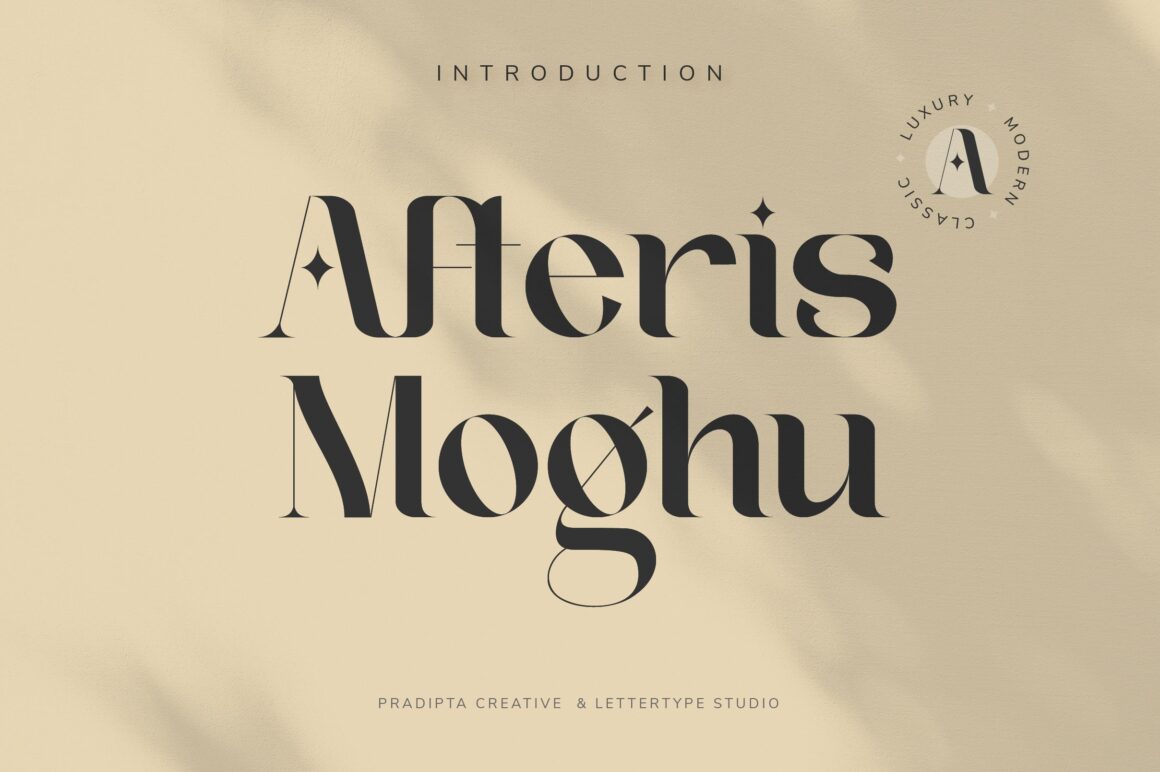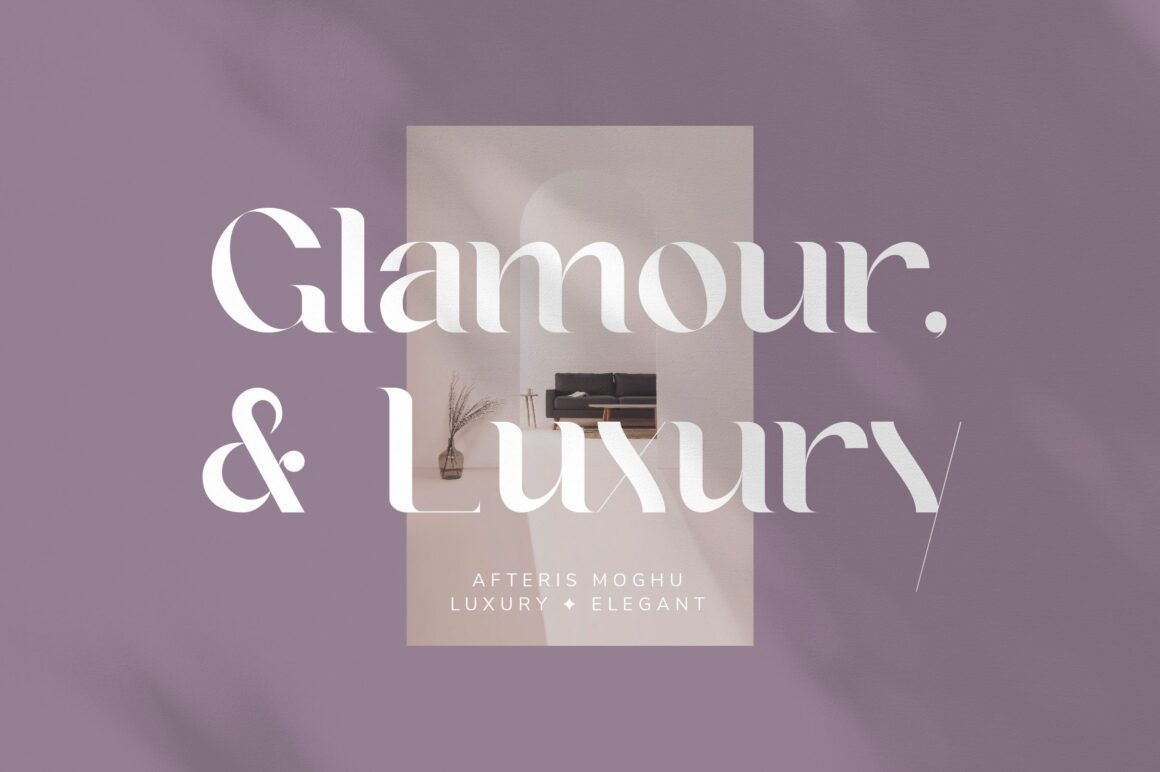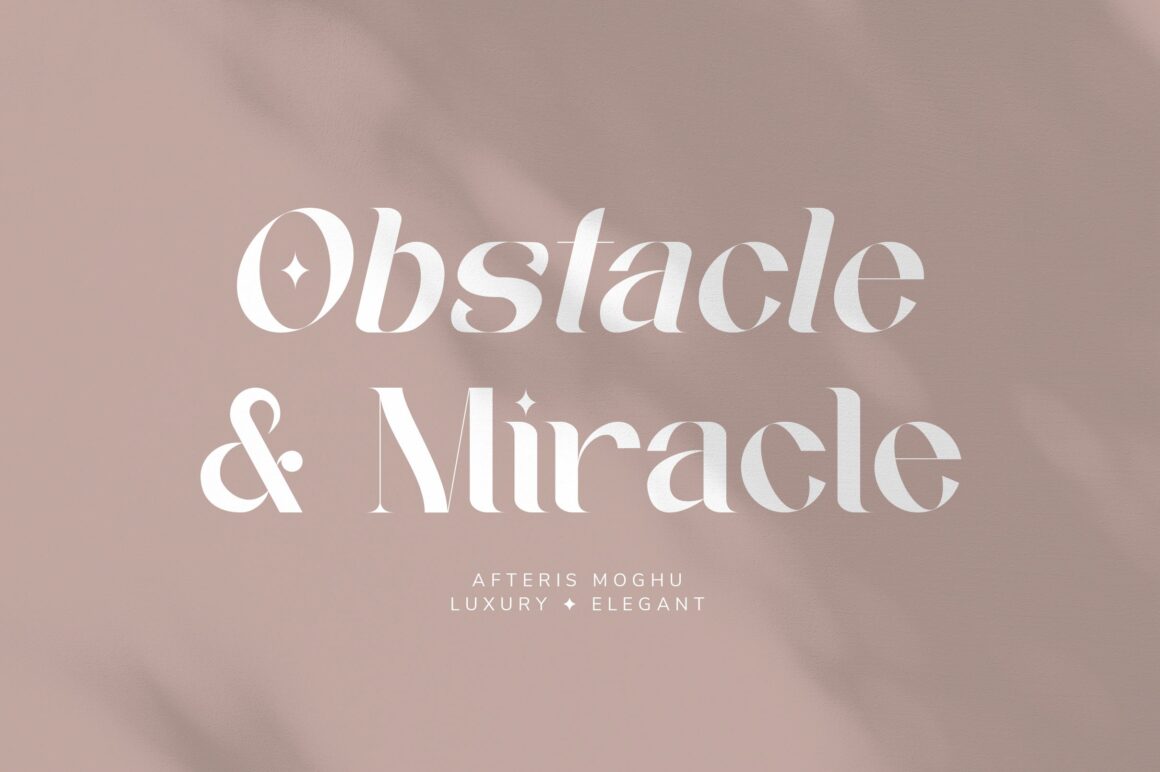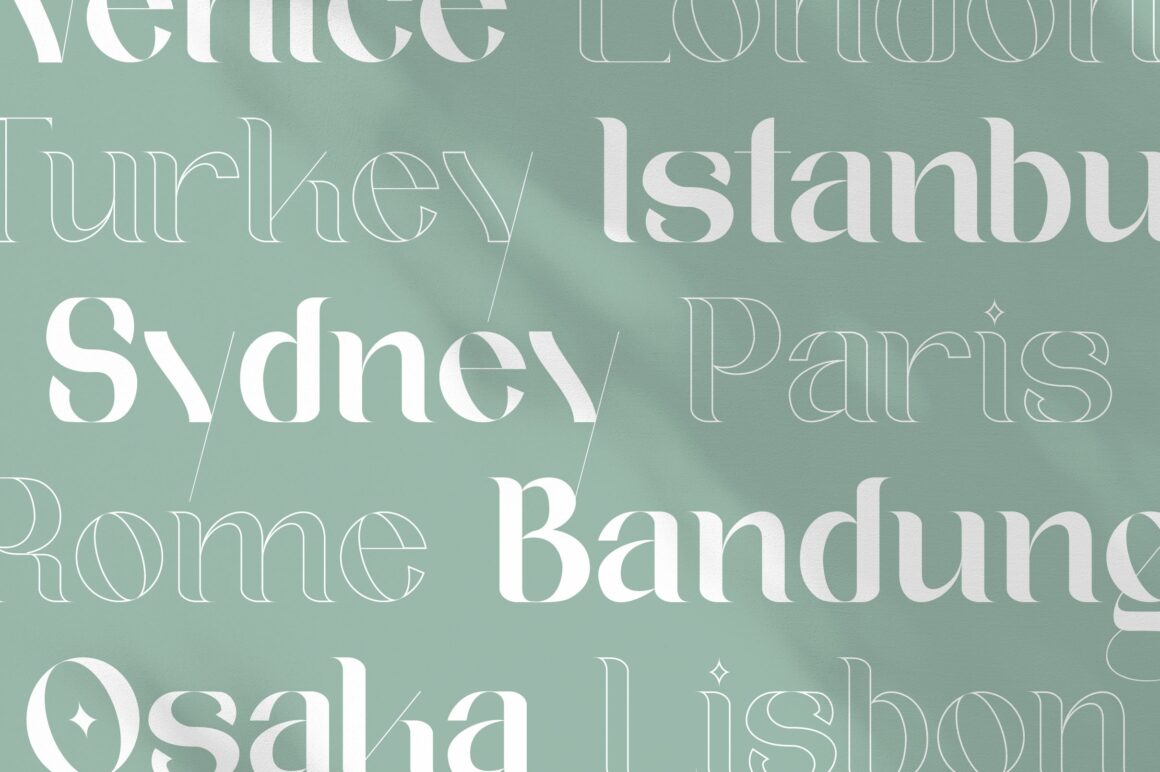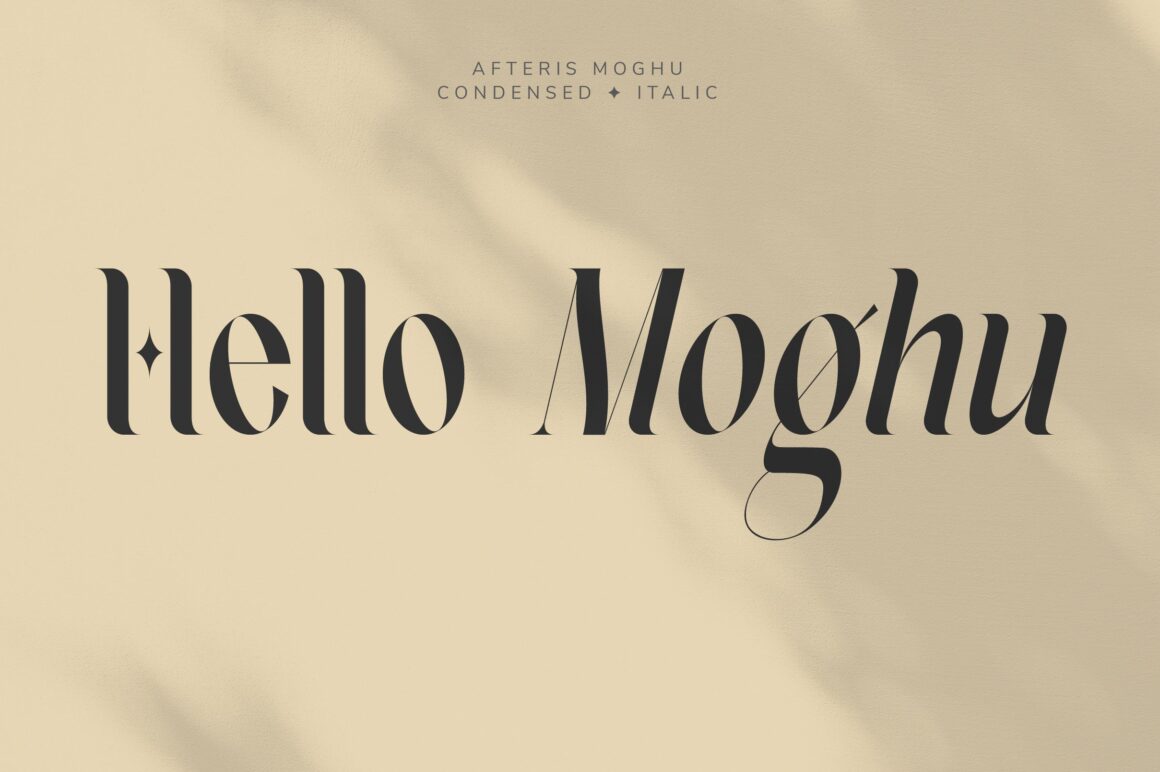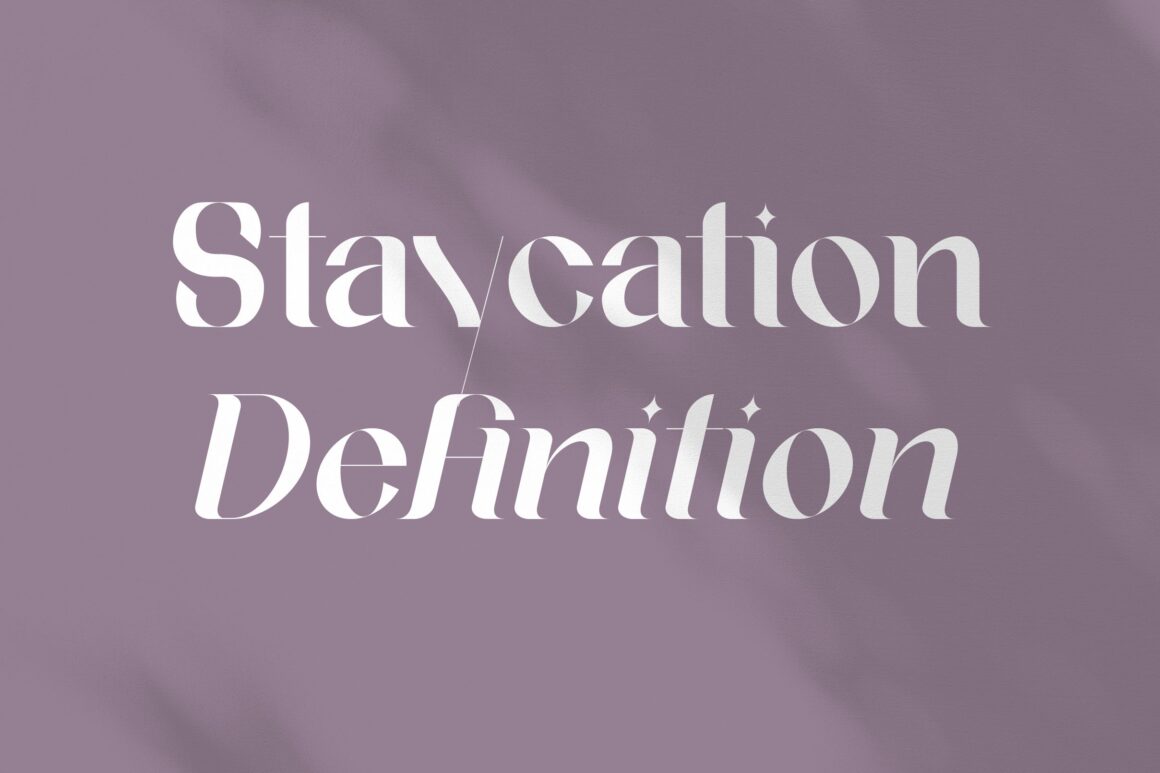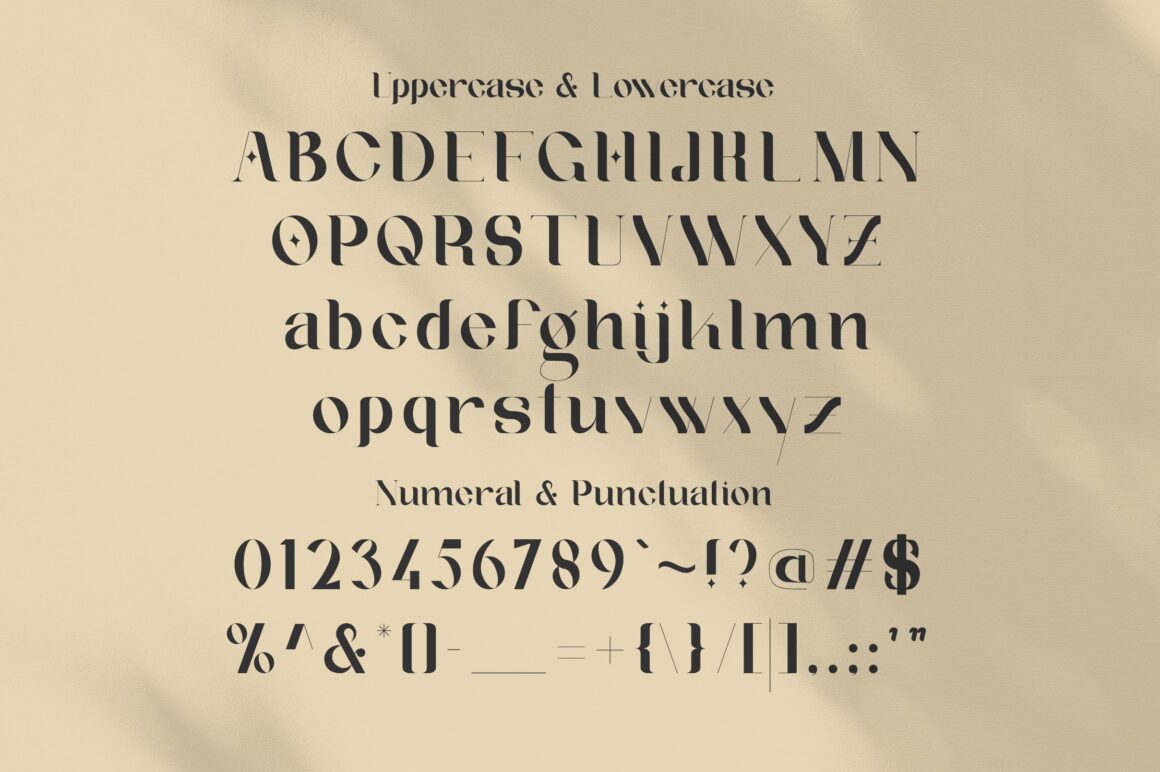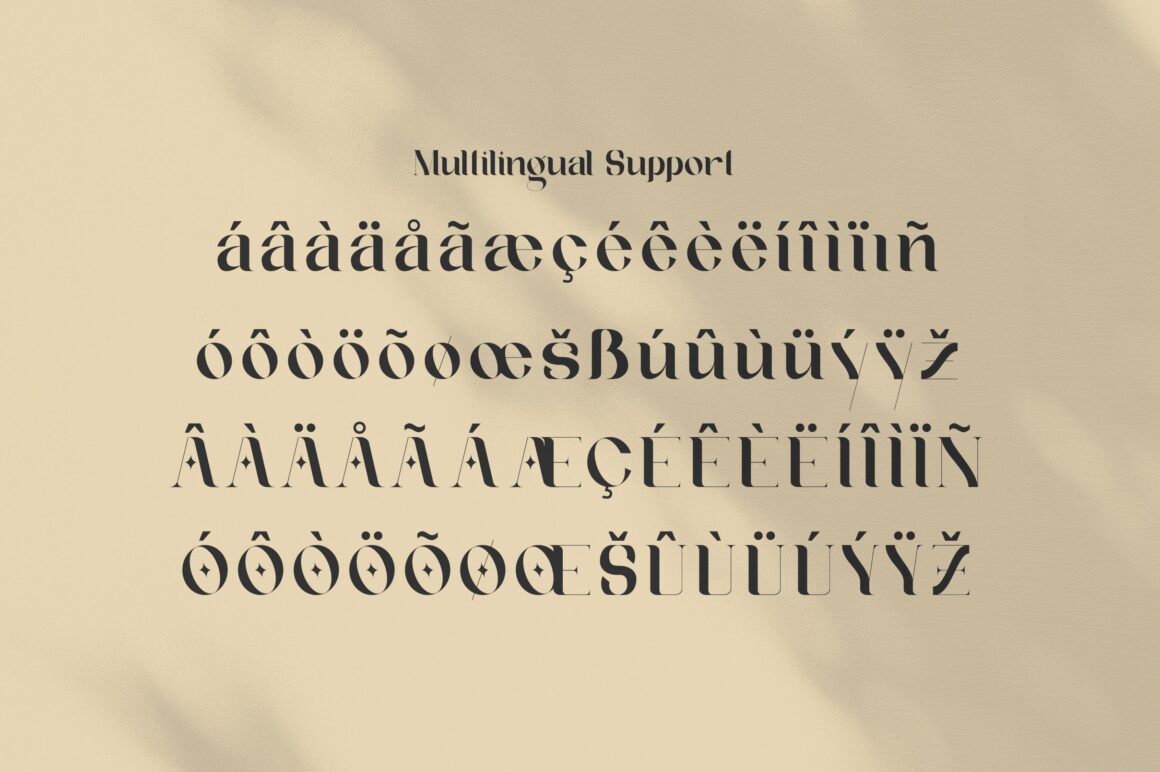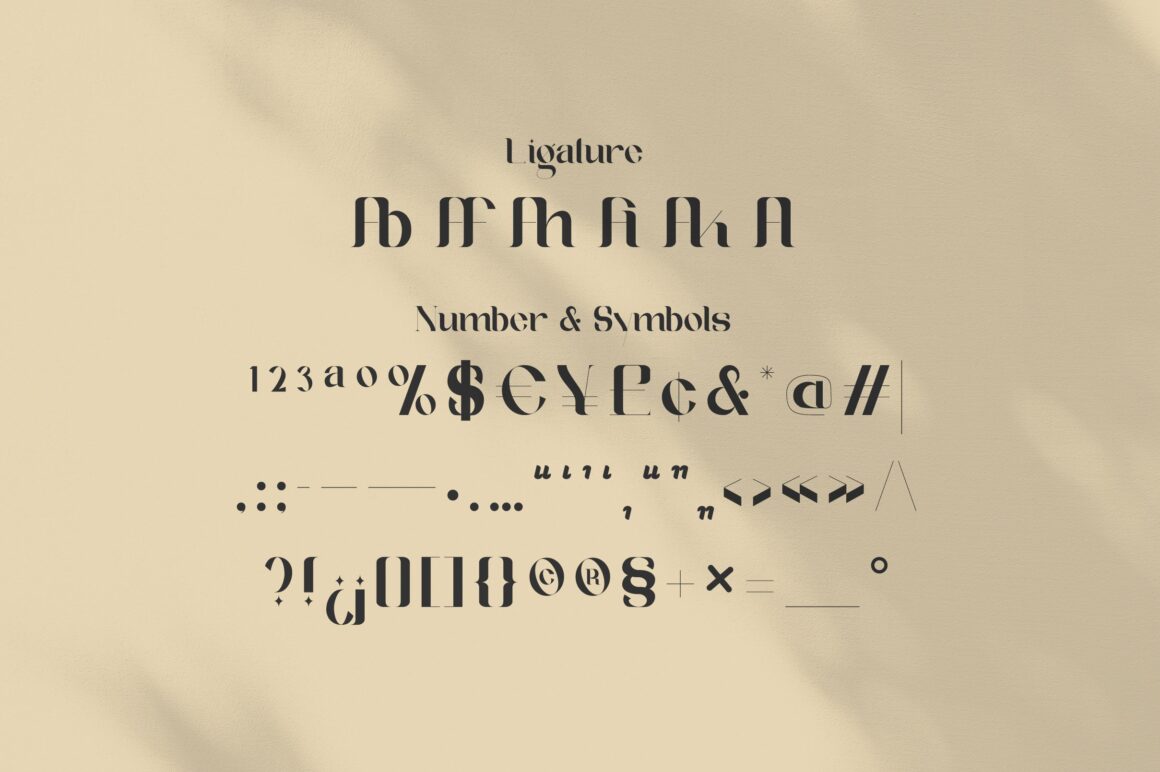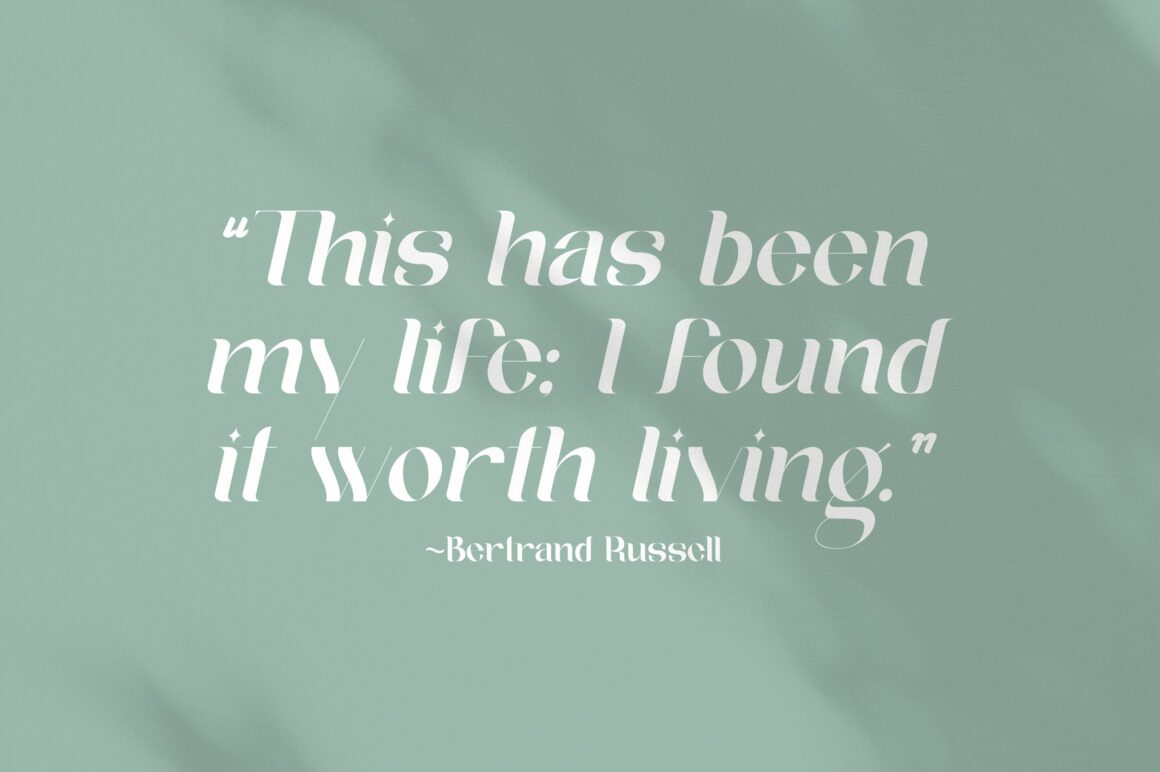
modern luxury serif font
Afteris Moghu
Afteris Moghu Italic
Afteris Moghu Outline
Afteris Moghu Condensed
Afteris Moghu Condensed Italic
Afteris Moghu Serif is a versatile typeface that blends modern elegance with classic vintage charm. Designed with timeless serif details, this font is ideal for creating logos, branding, signage, apparel, posters, and wedding invitations that stand out with sophistication and style.
Crafted to be both functional and beautiful, Afteris Moghu adapts easily to a wide variety of projects. Whether you’re aiming for a sleek modern aesthetic or a nostalgic vintage look, this serif font brings balance, refinement, and personality to every design.
Afteris Moghu Features:
• 5 Styles
• Upright & Oblique
• Stylistic Ligature
• 169+ Languages Supports